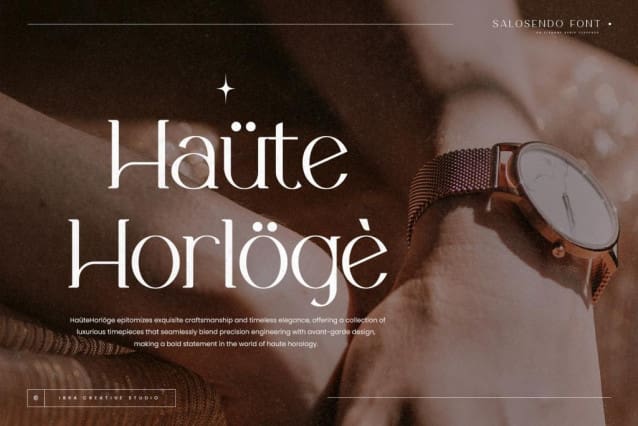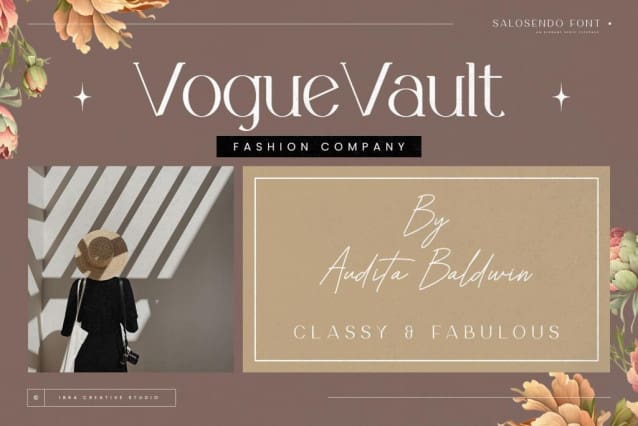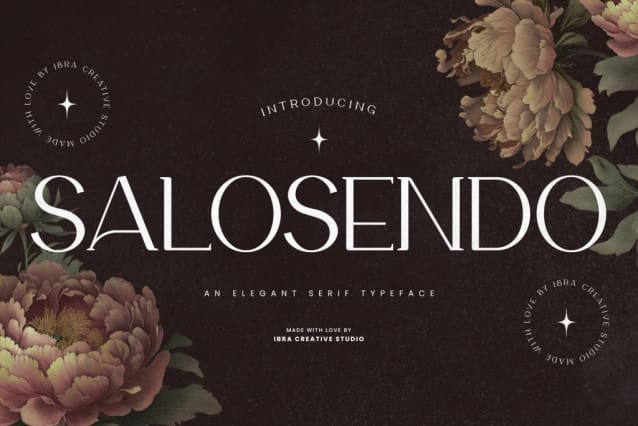
Salosendo Font
Salosendo Font, an elegant serif typeface, exudes sophistication and refinement in every stroke. With its graceful letterforms and balanced proportions, Salosendo Font adds a touch of timeless class to any design project. The serifs are subtly crafted, conveying a sense of tradition while maintaining a modern and versatile appeal. The letter spacing is meticulously tuned, ensuring a harmonious flow that enhances legibility. Salosendo’s versatility shines through in both print and digital applications, making it an ideal choice for editorial layouts, branding, and high-end invitations. Its graceful curves and meticulous details make Salosendo a typeface that effortlessly elevates the visual aesthetic, embodying a perfect blend of classic charm and contemporary finesse.